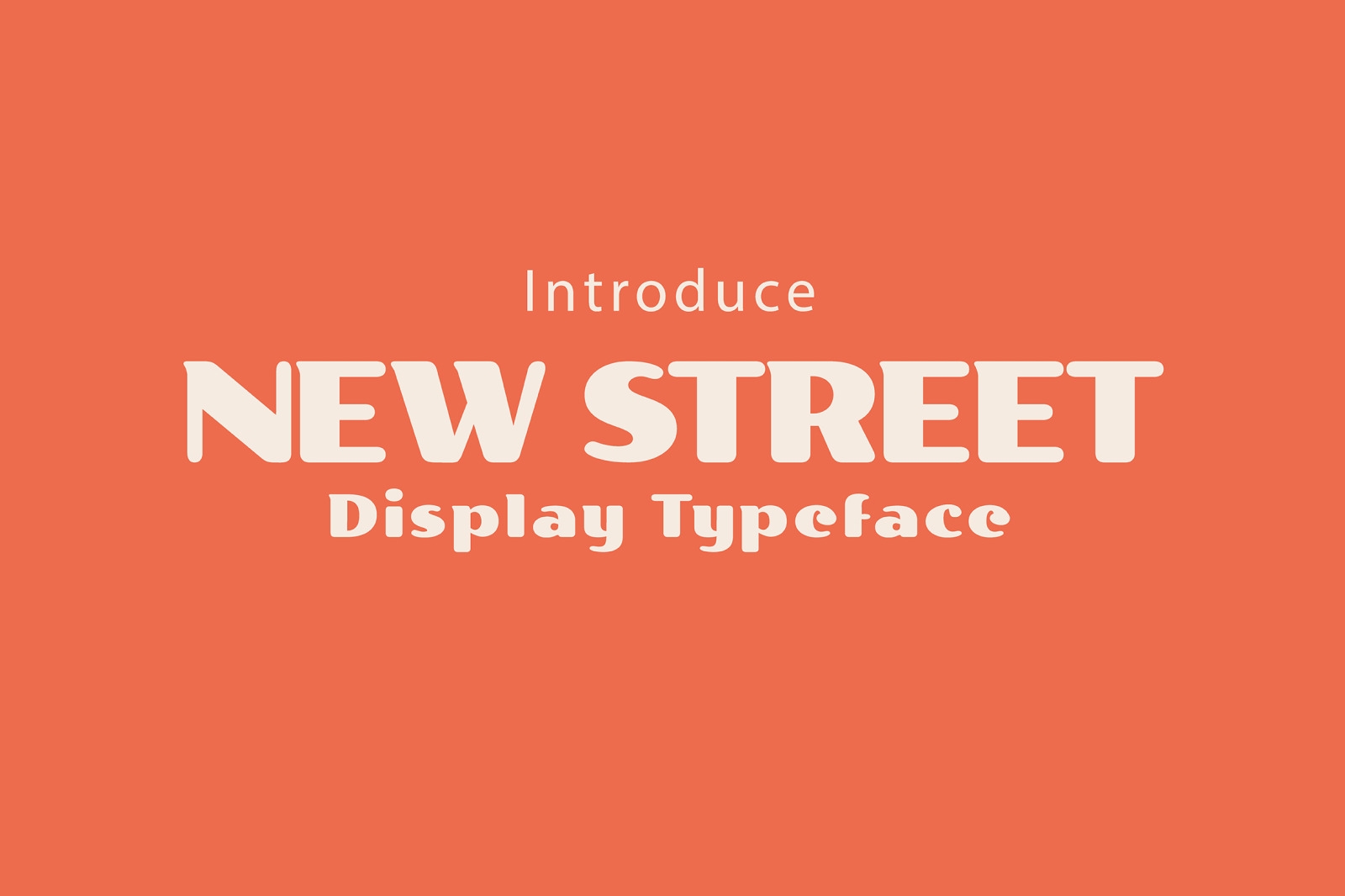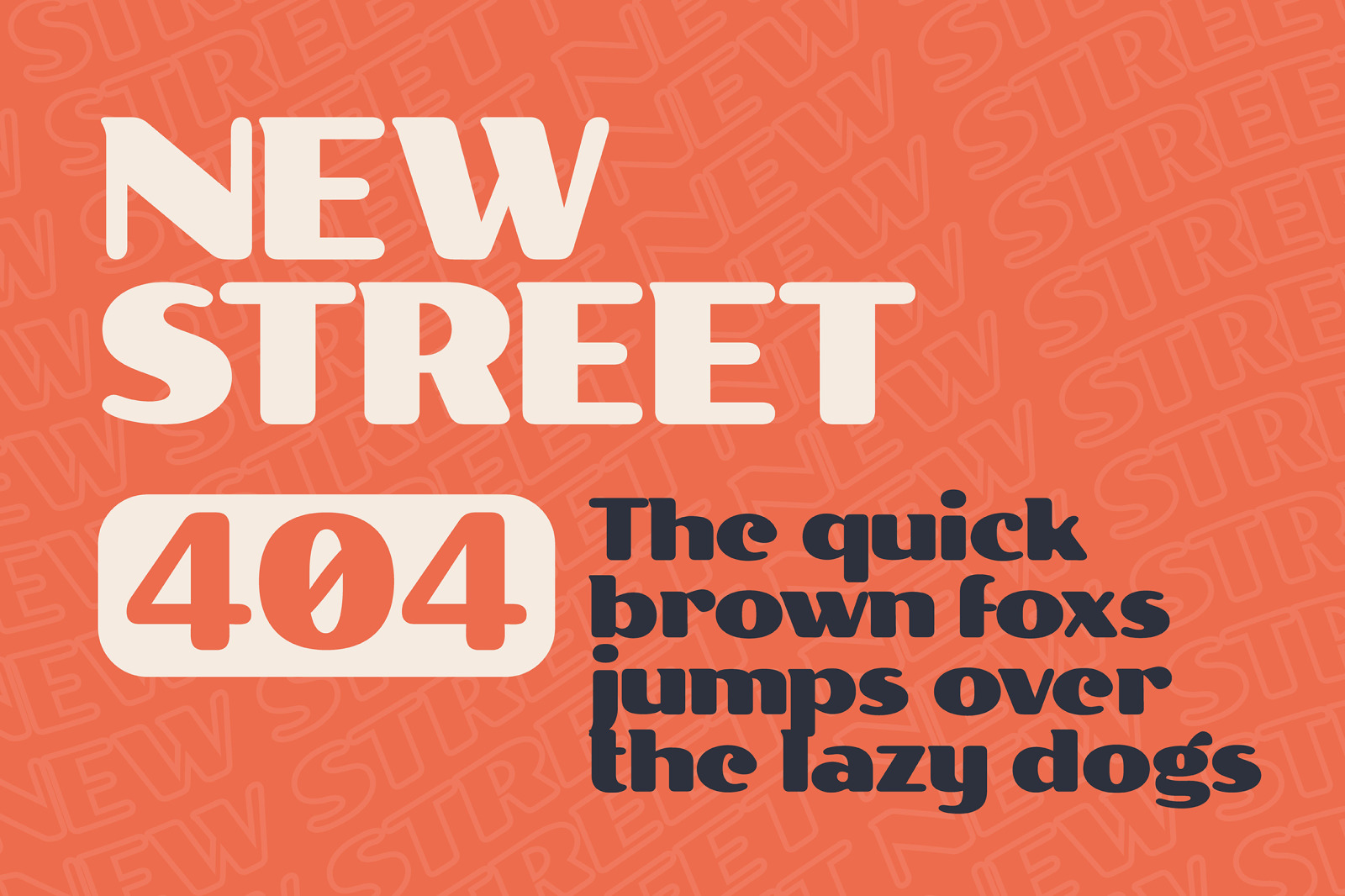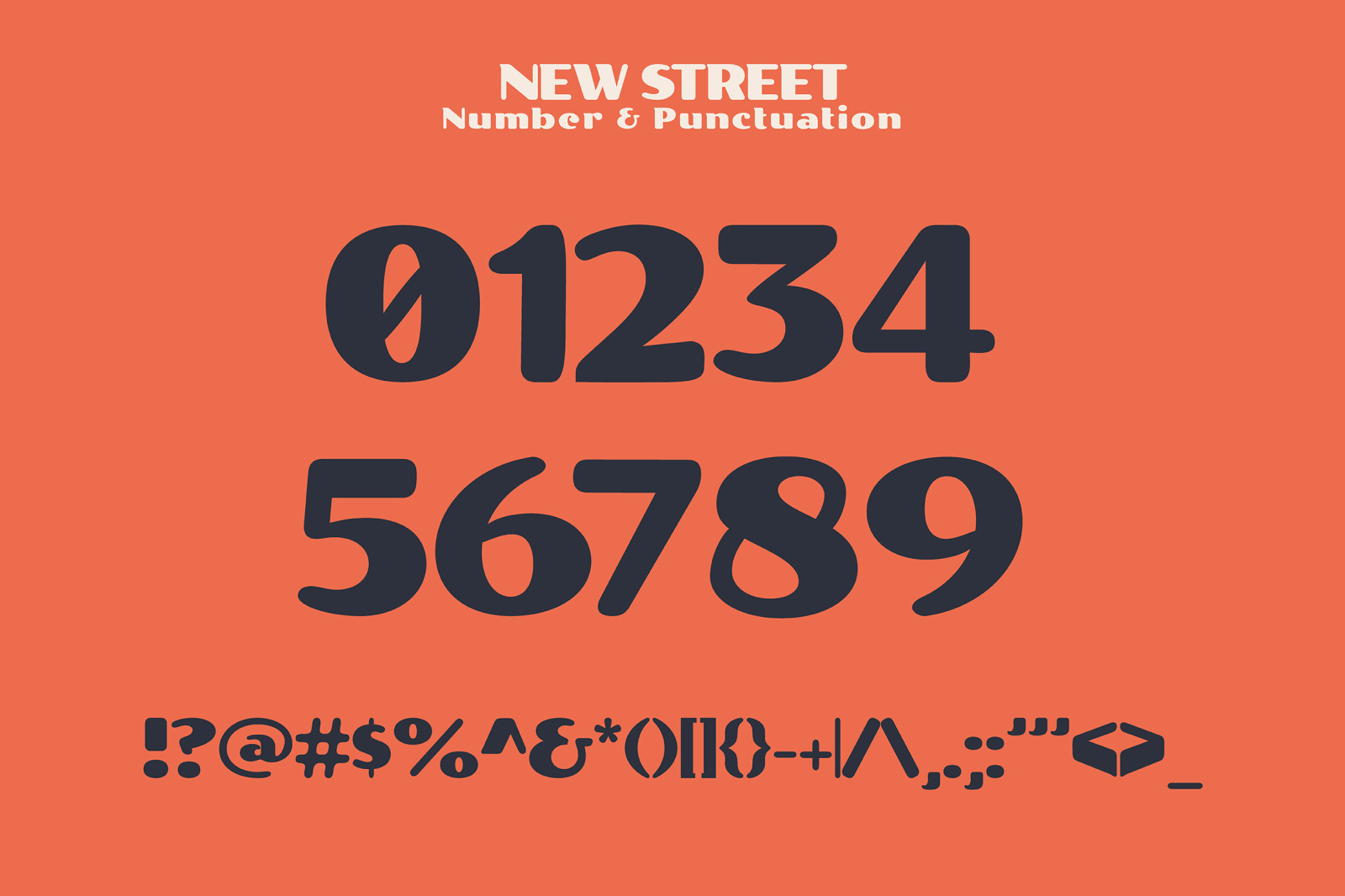
New Street - Bold Display Typeface
New Street is a cool and thick lettered display font. Add it confidently to your favorite creations and let yourself be amazed by the outcome generated.